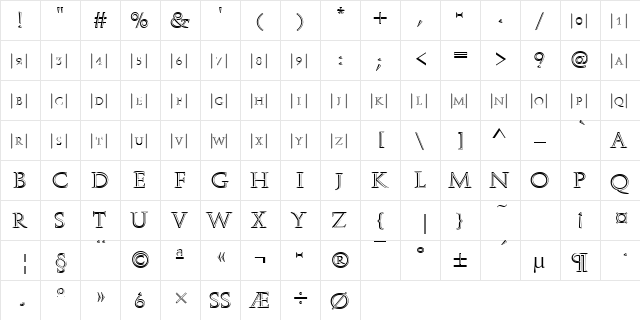
DisplayNo1URWIniD Regular Font Preview
DisplayNo1URWIniD Regular
Design Context for DisplayNo1URWIniD Typeface
DisplayNo1URWIniD is built around its visual character rather than neutral utility — its distinctive forms are designed to make an impression at display sizes.
Font Pairing: Pair with a clean neutral sans-serif for body copy to let DisplayNo1URWIniD's character lead without overwhelming the composition.
Pro Tip: Treat DisplayNo1URWIniD as the centrepiece of your typographic hierarchy. One strong heading set in a decorative face can carry an entire layout.